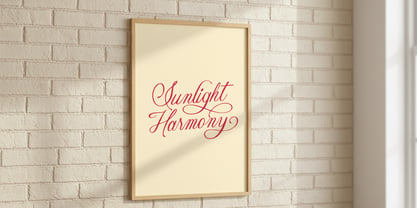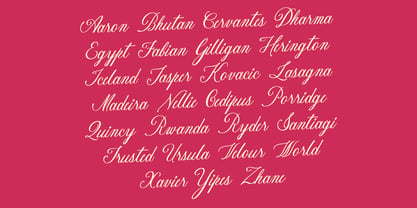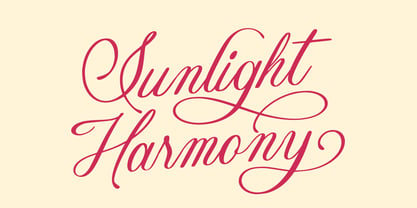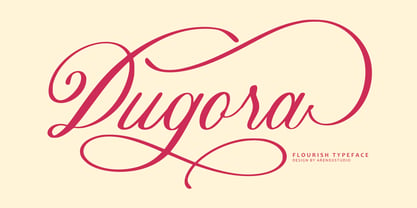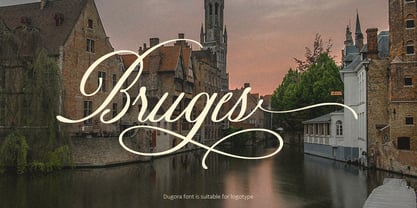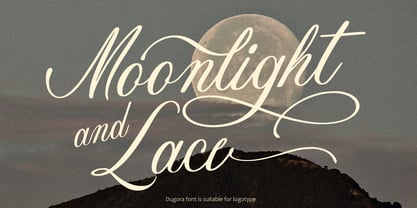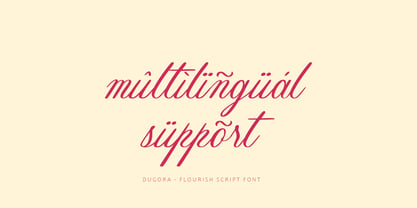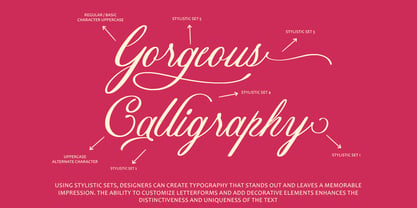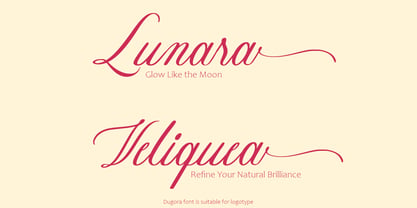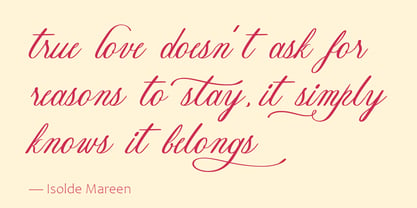
Dugora
by Arendxstudio
The Dugora Font Family was designed by Asep Rendi and published by Arendxstudio. Dugora contains 1 styles. More about this family
Dugora is a flourish script typeface that captures elegance, emotion, and timeless sophistication. It delivers a perfect harmony between artistic expression and refined form, making it ideal for projects that require a luxurious and graceful impression. Designed with beauty and fluidity in mind, Dugora enhances every creative work with personality and charm. Whether for branding, invitations, or editorial layouts, this typeface brings a sense of artistry that elevates your visual storytelling. Features : Uppercase and lowercase characters Numerals and Punctuation Accents (Supports Multilingual Characters) PUA Encoding
Designers: Asep Rendi
Foundry: Arendxstudio